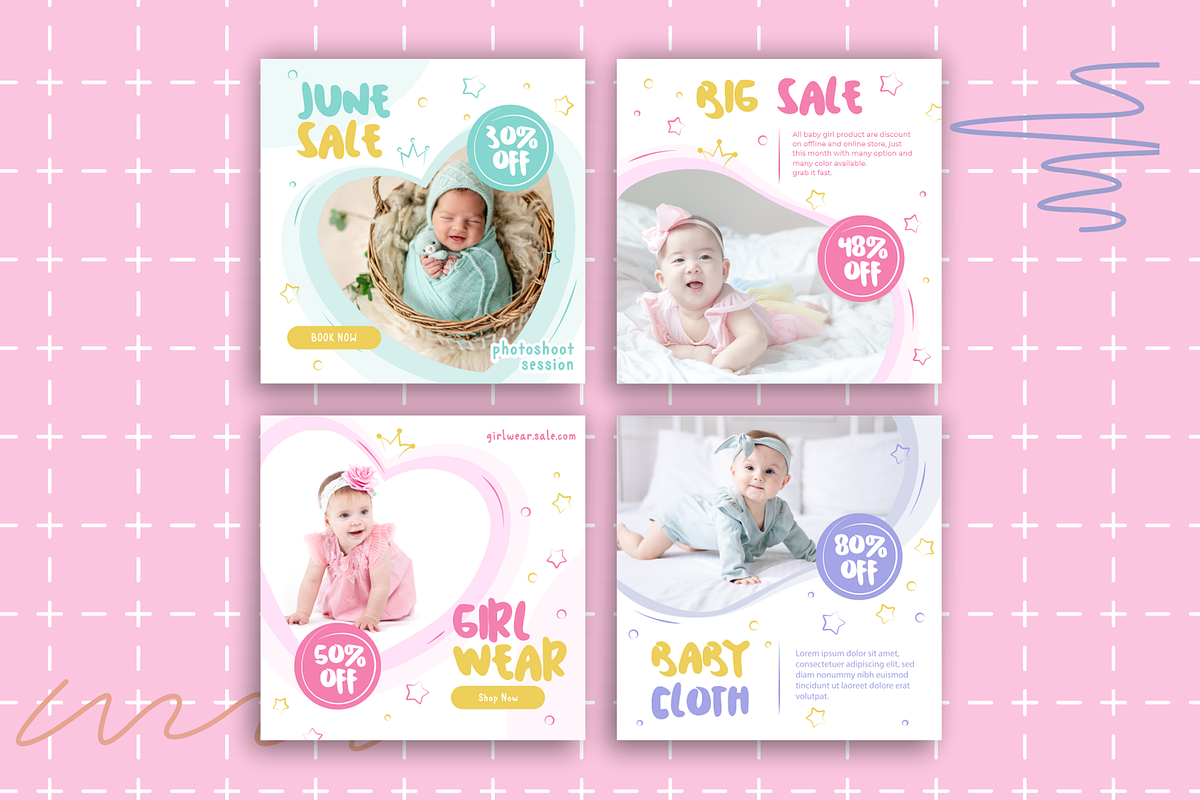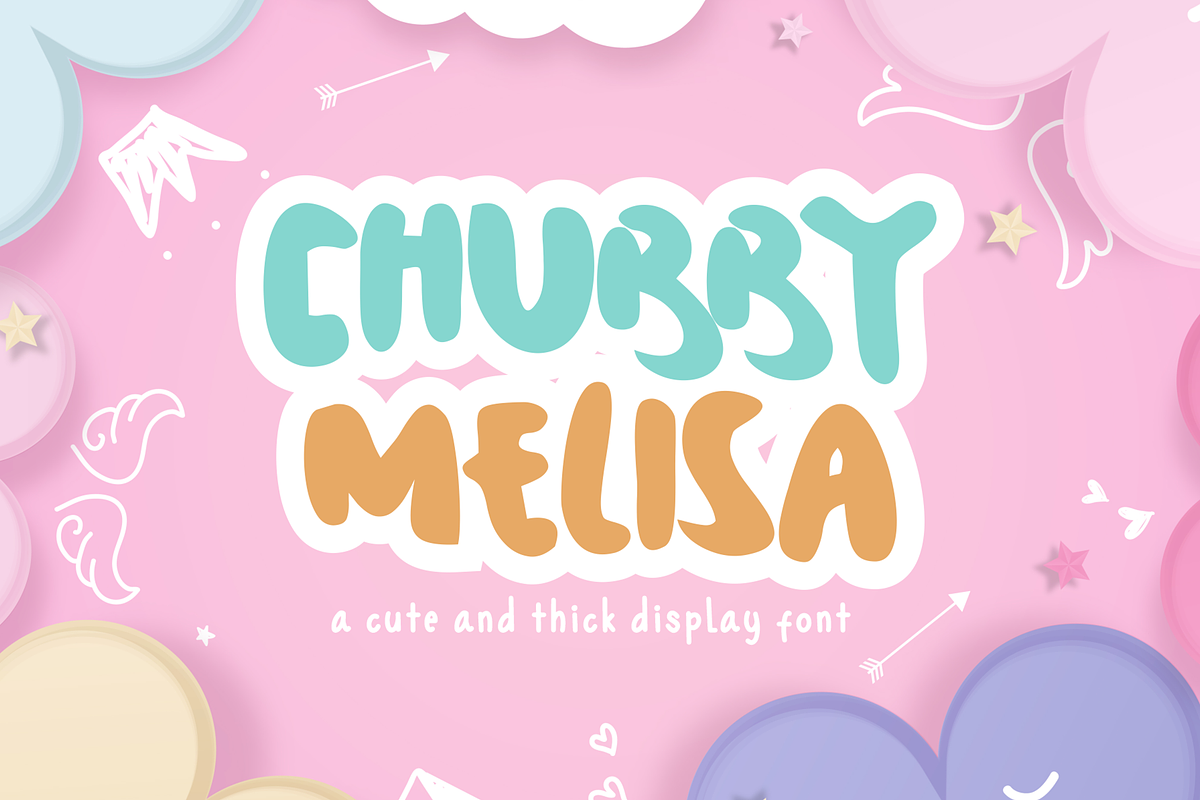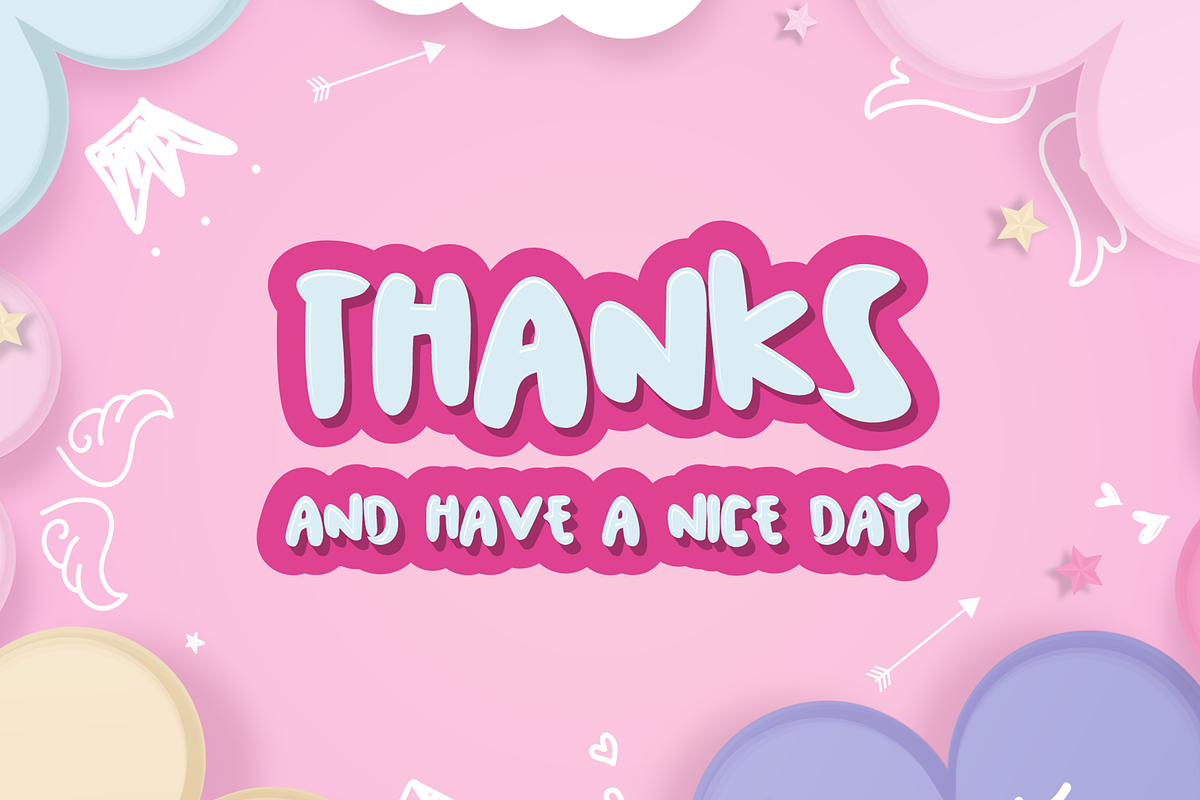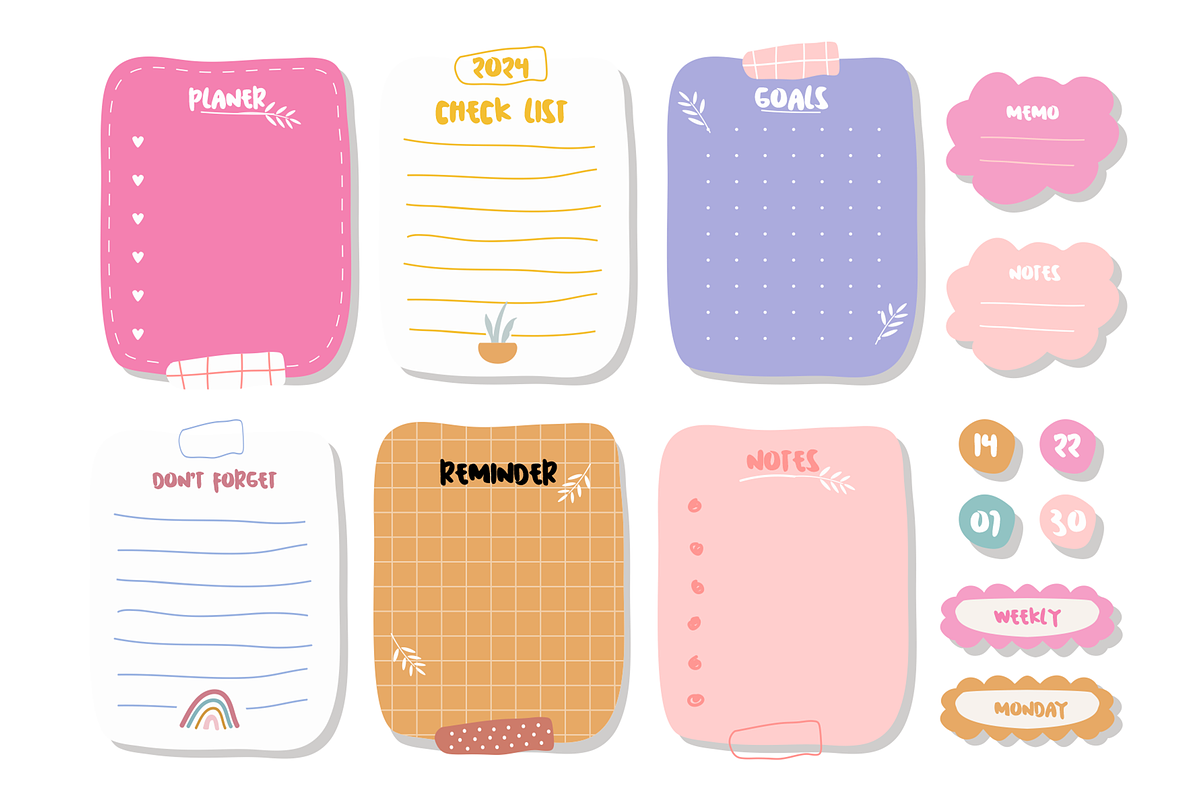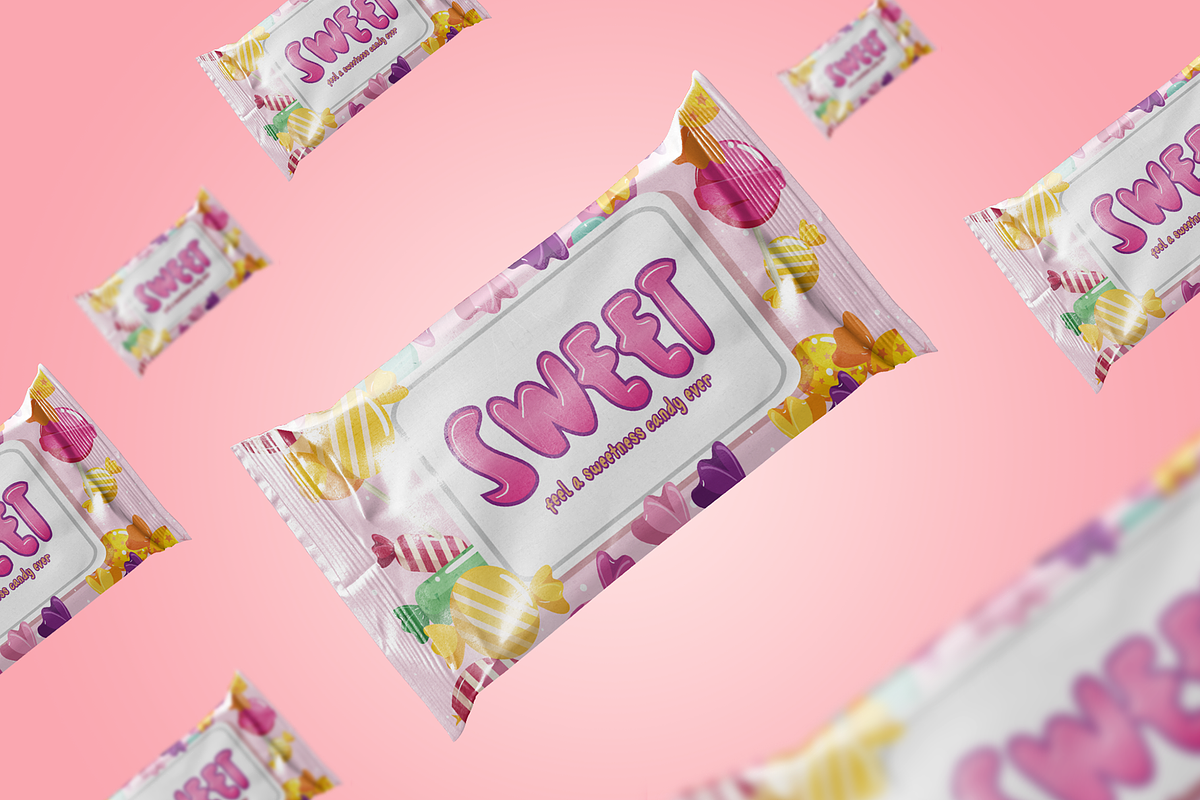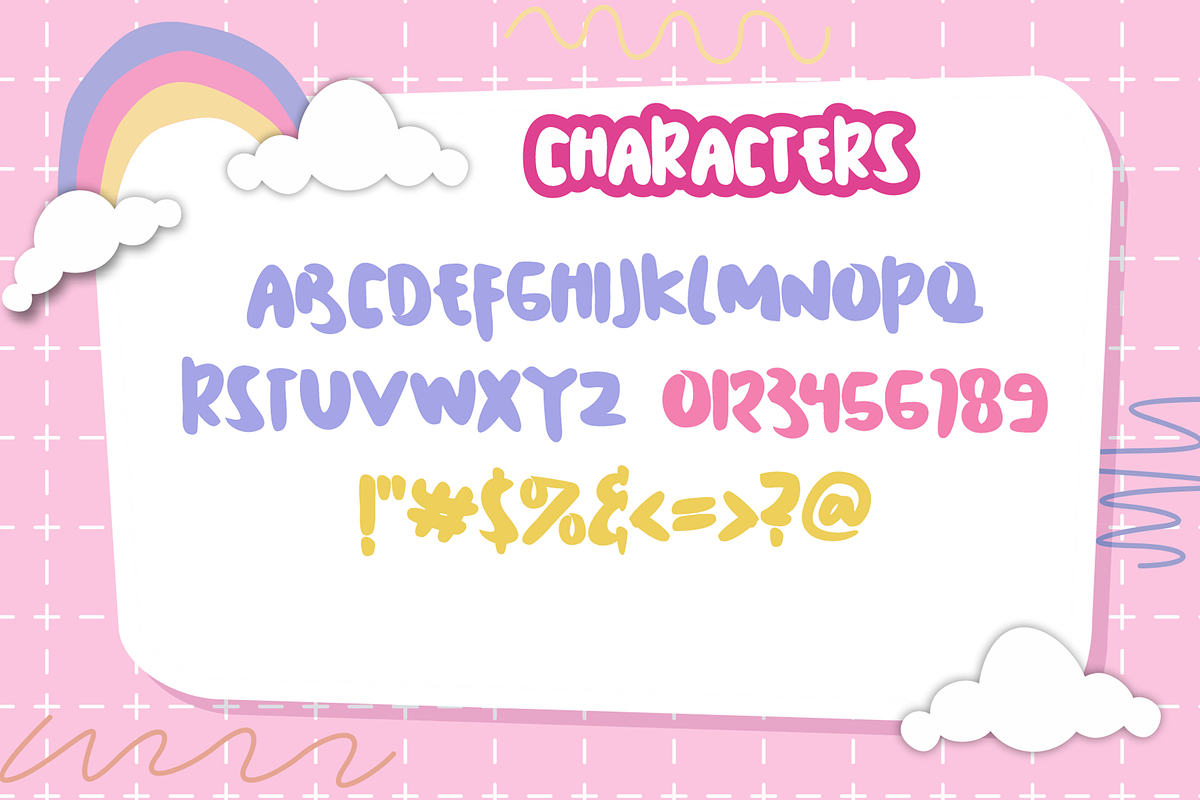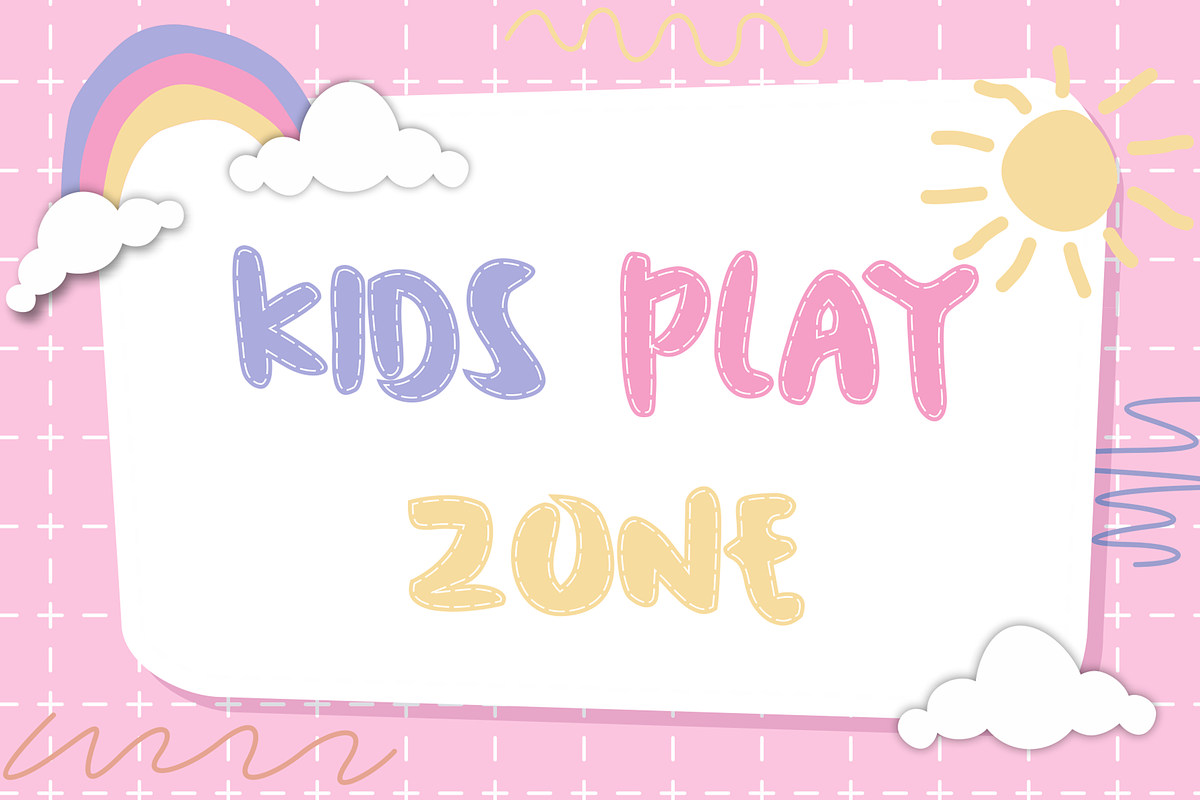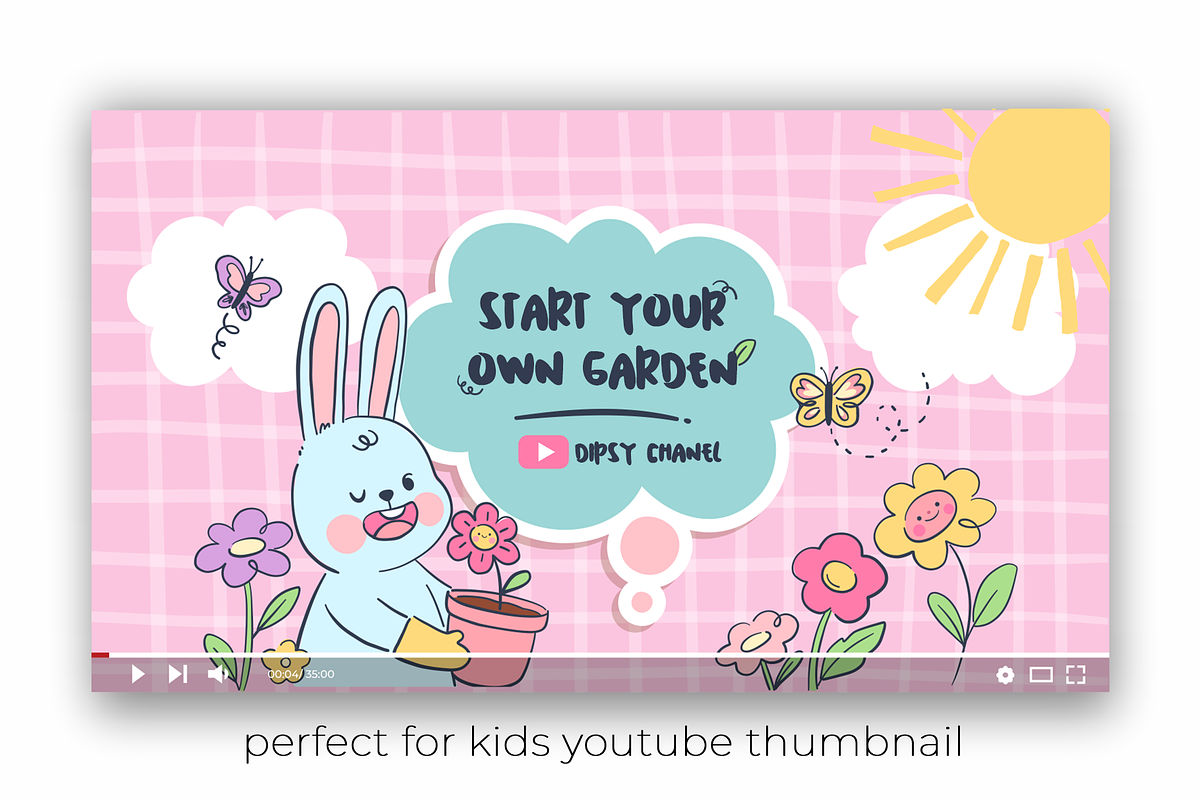
Chubby Melisa
Chubby Melisa is a Cute and Thick Handwritten Font with a relaxed theme, featuring a lovely style. No matter the topic, but this font is awesome for every kids or child project, this font will be an incredibly asset to your fonts’ library, as it has the potential to elevate any creation.